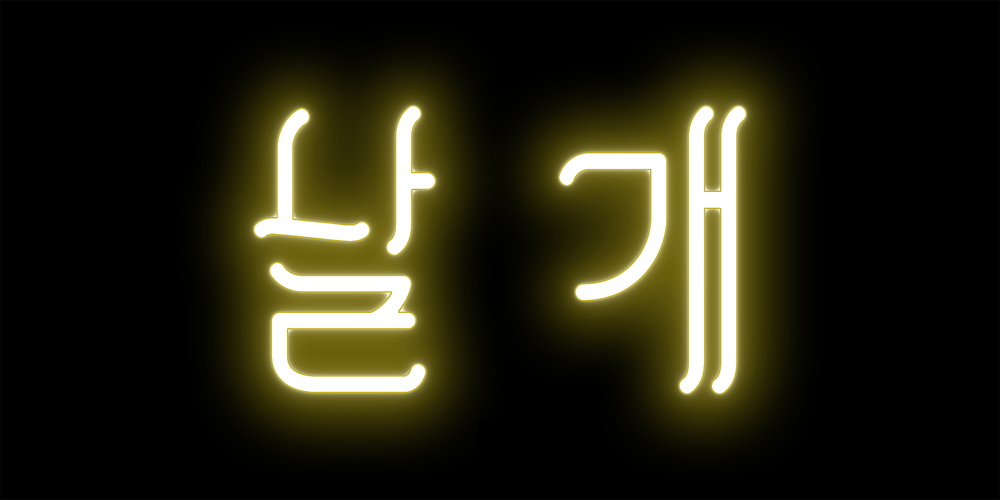
Nalgae Font Family was designed by Youngjin Shin and published by Diven. Nalgae contains 1 styles and family package options. About This Font Nalgae is a Korean modern-traditional conceived from Hermes’ shoes.By flowing the end of the letters with a brush, the speed of stroke : express wind, It is a design font created for complement it more as an illustration.This font is for express Hangeul (Korean alphabet) unique, importance, logotype, pattern, title, branding and more.